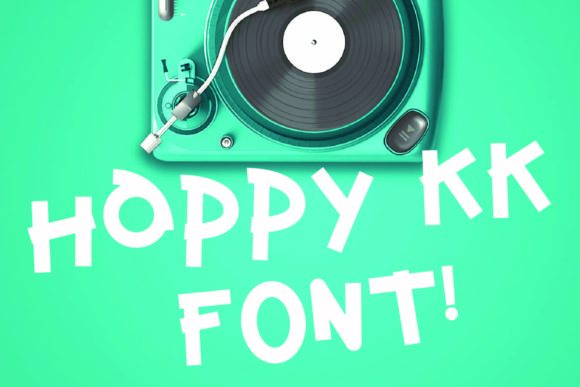
Happy KK Font
Unleash the Joy of Expression with Happy KK Font: Your Gateway to Enchanting Designs
In a world brimming with conformity, Happy KK Font emerges as a beacon of individuality, a font family crafted to ignite your creativity and transform your designs into captivating expressions of joy and whimsy.
Embark on a Typographic Adventure with Happy KK
Happy KK Font is a display font that dances across your screen like a playful melody, captivating hearts with its charmingly casual style. Its friendly demeanor invites warmth and approachability into your designs, making it the perfect choice for creating heartfelt wedding invitations, enchanting stationary art, eye-catching social media posts, and greeting cards that radiate pure delight.
A Visual Symphony of Style and Substance
The Happy KK Font family is a visual masterpiece, each character meticulously designed to evoke a sense of joy and wonder. Its unique design elements, from the playfully curved lines to the delightfully imperfect edges, create a symphony of style that dances harmoniously across your designs.
Immerse Yourself in a World of Creativity
With Happy KK Font, your creative potential knows no bounds. Let your imagination soar as you craft enchanting wedding invitations that capture the essence of your love story, design stationary art that reflects your vibrant personality, create social media posts that radiate positivity, and craft greeting cards that spread joy like wildfire.
The Perfect Font for Your Design Endeavors
Whether you're a seasoned designer or just starting your creative journey, Happy KK Font is your perfect companion. Its user-friendly nature and versatility make it accessible to designers of all levels, empowering you to effortlessly create designs that leave a lasting impression.
Join the Happy Revolution
Embrace the Happy KK Font today and unlock a world of creative possibilities. Transform your designs into delightful expressions of joy, spread happiness like confetti, and create a lasting impression that lingers in the hearts of your audience.